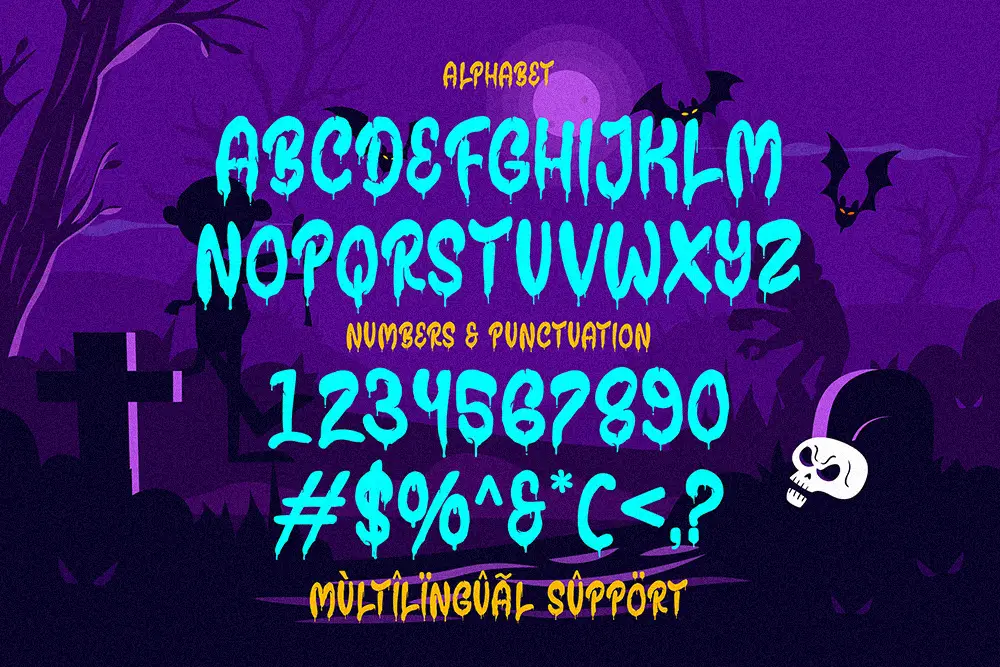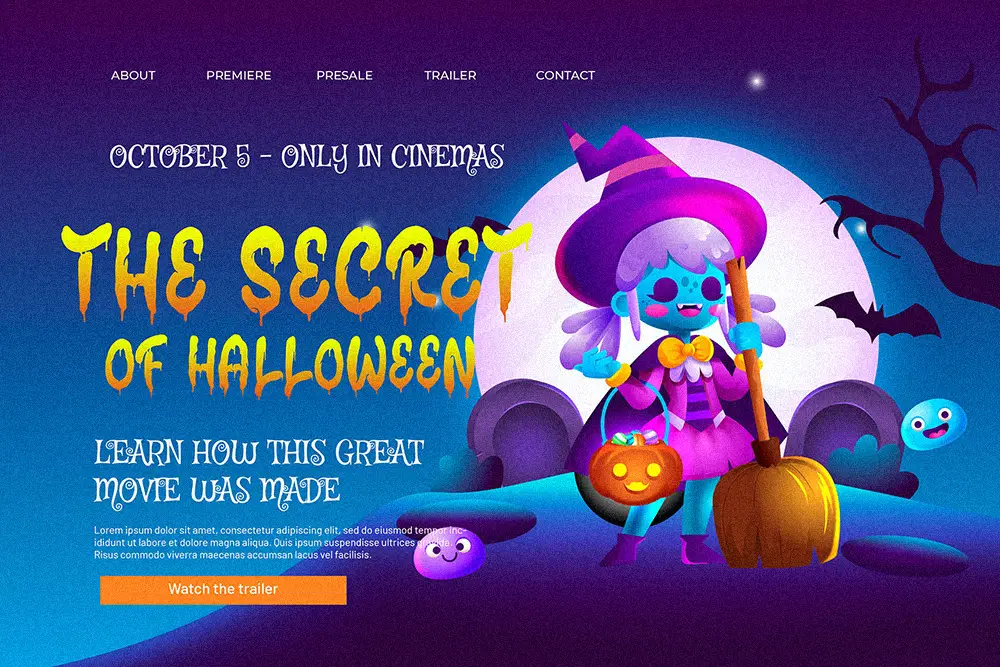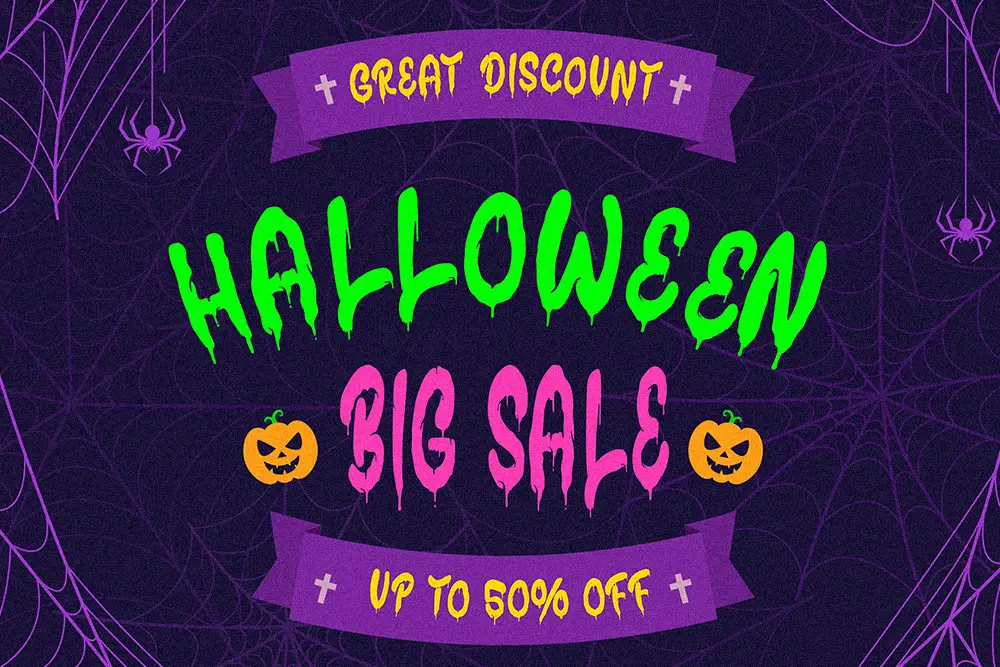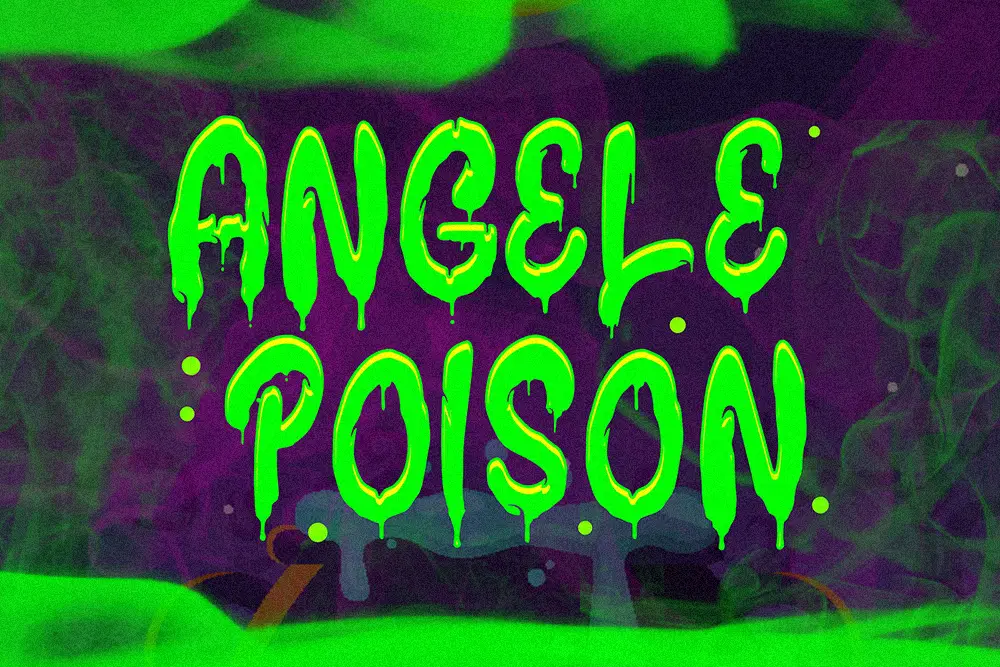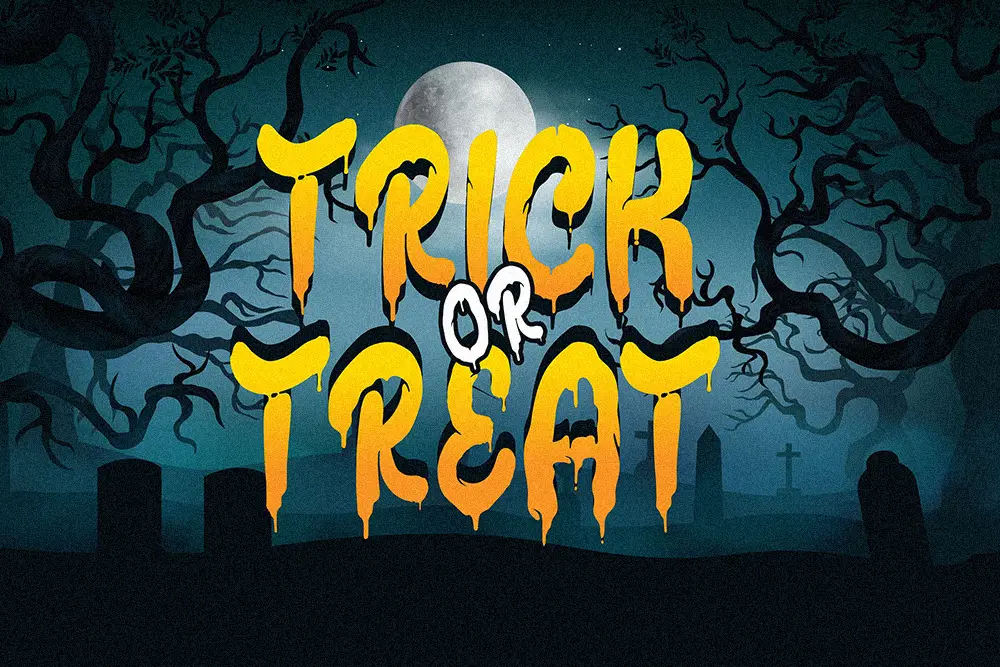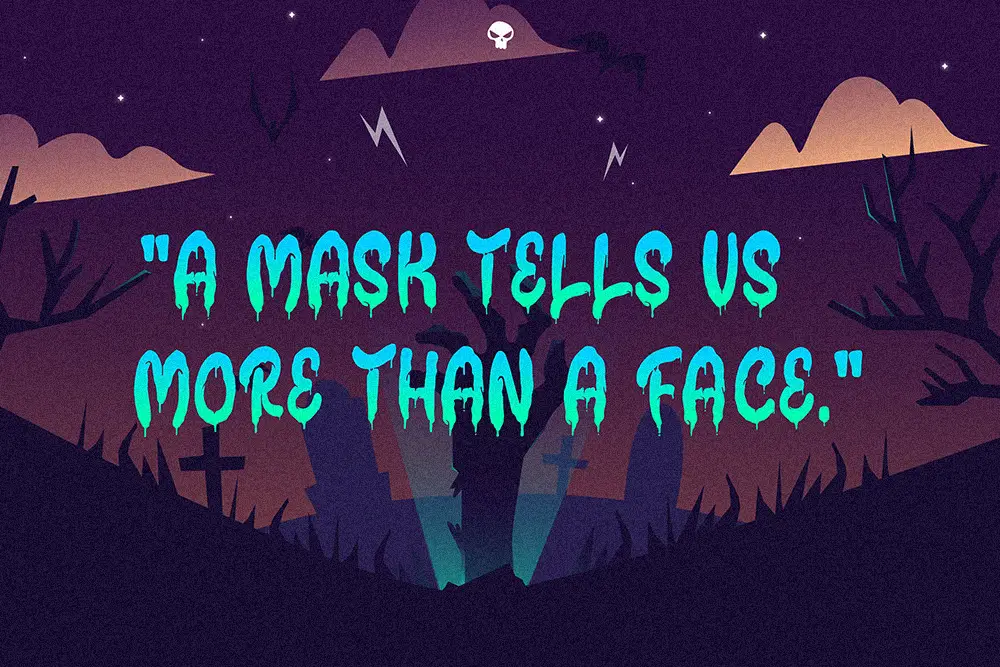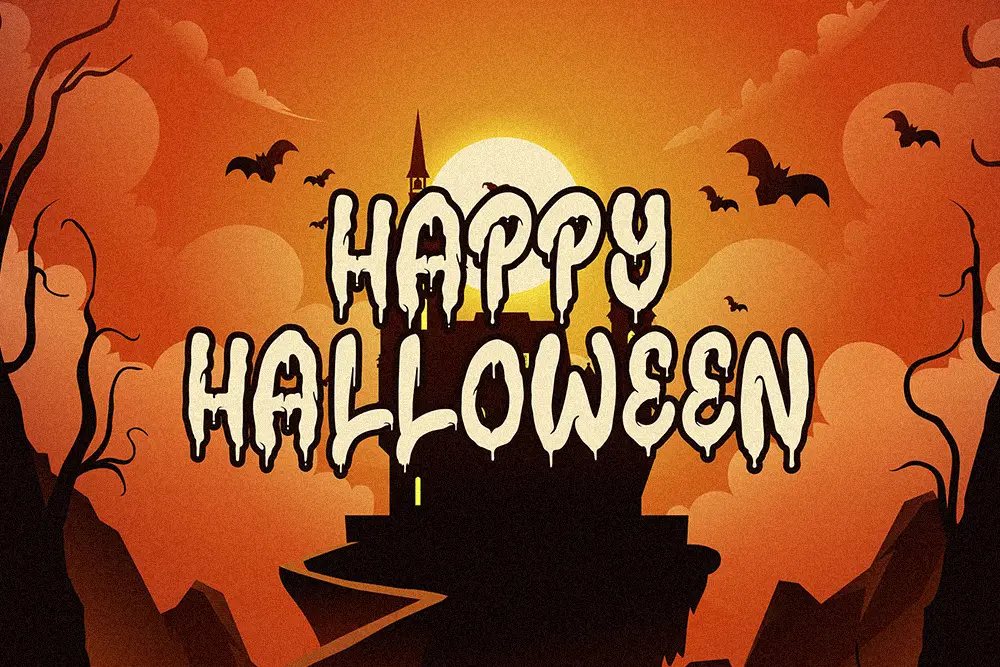
Hallow Creeps
Hallow Creeps – Melted Halloween Font for Spooky Design
When the spooky season arrives, you need the right typeface to capture eerie vibes and playful horror. Hallow Creeps – Melted Halloween Font is a unique display typeface that drips with creepy energy, perfect for October designs and year-round scary themes. Crafted with melted edges and horror-inspired details, this melted Halloween font turns every poster, party invitation, and logo into a haunted masterpiece.
From pumpkin festival flyers to haunted house branding, Hallow Creeps ensures your message stands out with spooky authenticity.
Melted Halloween Font with Creepy Personality
Unlike standard fonts, Hallow Creeps is designed as a melted Halloween font that feels alive, as if melting on the page. The irregular strokes and dripping details make it perfect for horror movies, haunted attractions, or seasonal campaigns.
When paired with another themed font like Cursed Night Bold Halloween Font, the result is an unforgettable combination of fright and fun.
Key Features of Hallow Creeps – Melted Halloween Font
• Uppercase & Lowercase: Complete character set for maximum flexibility.
• Multilingual Support: Extended Latin coverage for global spooky designs.
• Melted Horror Style: Dripping strokes and eerie shapes for authentic Halloween vibes.
• Perfect for Display Use: Posters, party invites, social media graphics, and branding.
Why Designers Love Hallow Creeps
Designers can’t resist the dramatic effect of a melted Halloween font like Hallow Creeps. It’s spooky yet playful, making it versatile across industries.
Here’s why it’s a favorite:
• Instantly Thematic: Perfectly sets the tone for Halloween designs.
• Versatile Use: From posters and invites to merchandise and branding.
• Pairing Ready: Matches perfectly with Cursed Night or minimalist sans serifs.
• Professional Quality: Built for designers who need impact and legibility.
Hallow Creeps for Posters and Party Invites
Halloween posters and party invitations are all about atmosphere. With Hallow Creeps, your titles and event names instantly look spooky. This melted Halloween font drips with eerie character, ensuring your design captures attention whether printed on flyers or shared on Instagram.
Hallow Creeps in Logos and Branding
Seasonal branding calls for typefaces that set the mood. For October campaigns, haunted attractions, or themed food packaging, Hallow Creeps is the perfect melted Halloween font. It communicates fun, fear, and festivity in one glance.
Pair it with simple body fonts for balance, or combine it with Cursed Night for extra fright.
Digital campaigns thrive on bold visuals. Hallow Creeps shines as a melted Halloween font for Instagram posts, TikTok overlays, and YouTube thumbnails. Its dripping strokes grab attention in crowded feeds, making your Halloween promotions hard to miss.
For designers who want versatility, the multilingual support ensures global audiences can enjoy the creepy fun.
• Font Name: Hallow Creeps – Melted Halloween Font
• Character Set: Uppercase, Lowercase, Numbers, Punctuation
• Category: Melted Halloween Font / Display
• Best Uses: Posters, Party Invites, Logos, Social Media, Seasonal Branding
Why Hallow Creeps is the Best Melted Halloween Font
Typography sets the tone for storytelling, and Halloween demands fonts that look eerie yet fun. Hallow Creeps embodies this perfectly. As a melted Halloween font, it’s bold, legible, and dripping with character.
Whether you’re a professional designer or a DIY creative, Hallow Creeps gives you everything you need to bring haunted vibes into your projects.
Hallow Creeps – Melted Halloween Font is more than just a typeface; it’s a design experience. With dripping shapes, bold energy, and multilingual support, it’s built for designers who want to capture Halloween in its purest form.
Don’t just design—create spooky stories with Hallow Creeps. Pair it with Cursed Night, explore seasonal captions, and let your creativity shine this Halloween.